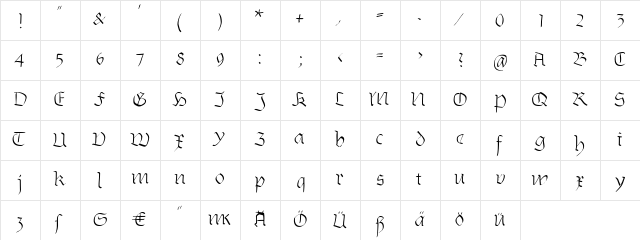
Burtine Regular
Design Context for Burtine Typeface
Burtine is a composed and adaptable typeface that performs quietly and consistently across a wide range of design contexts.